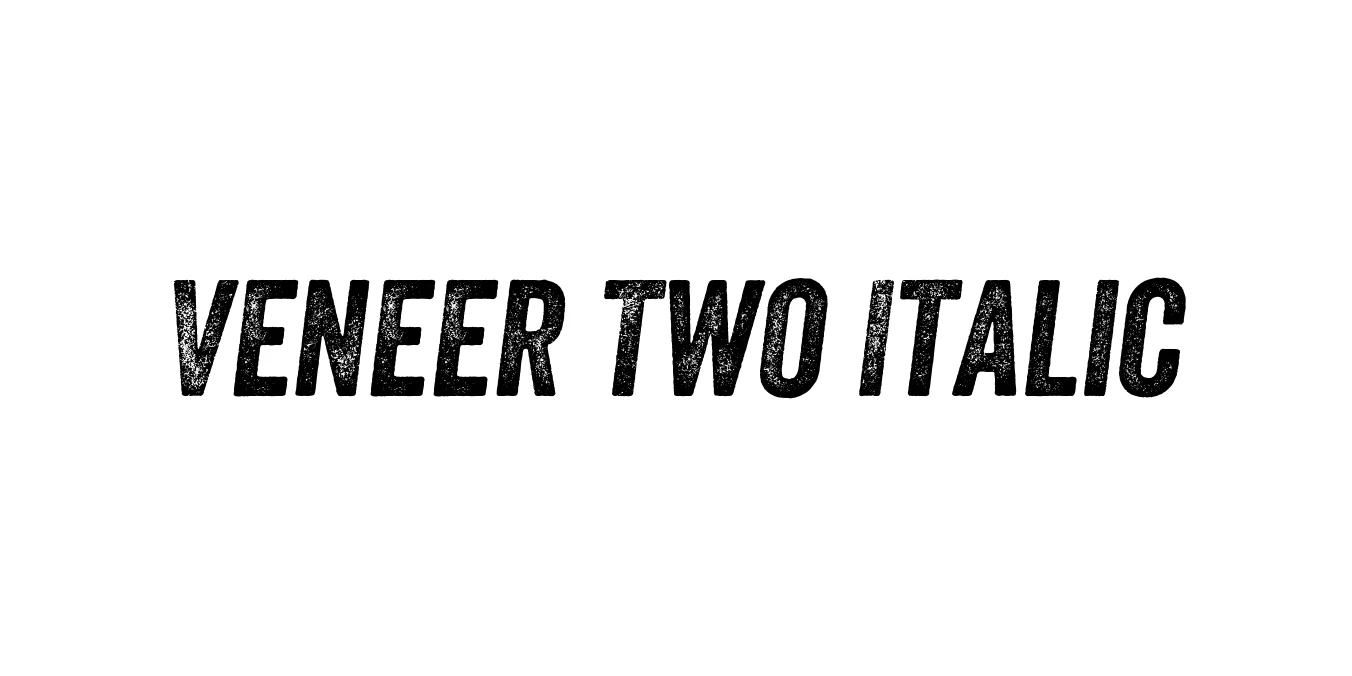
Veneer Two Italic
Designed by Ryan Martinson (Yellow Design Studio)
| Font Name | Veneer Two |
| Category | Display / Letterpress |
| Designer | Ryan Martinson (Yellow Design Studio) |
Veneer Two Italic is a high-resolution, hand-crafted letterpress font family that exudes a raw, vintage aesthetic. This specific weight offers a moderate level of distress, capturing the authentic imperfections of traditional ink-on-paper printing. The italicized slant adds a sense of motion and urgency to the rugged, sans-serif letterforms, making it an ideal choice for projects that require a bold, atmospheric presence.
Designed by Ryan Martinson, this typeface is renowned for its incredible detail and texture, which remains crisp even at large sizes. Veneer Two Italic stands out as a versatile tool for designers looking to evoke a sense of heritage, craftsmanship, or industrial grit. Whether used for branding or editorial headlines, its distinctive weathered look provides a tactile quality that digital fonts often lack.
Veneer Two Italic Best Uses
Creating authentic, heritage-inspired logos and brand identities.
High-impact headlines for music festivals, craft fairs, or industrial events.
Adding a tactile, artisan feel to organic or hand-made product labels.
Bold, eye-catching quotes and promotional graphics with a retro vibe.